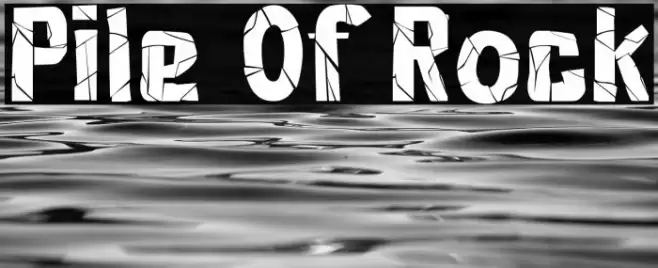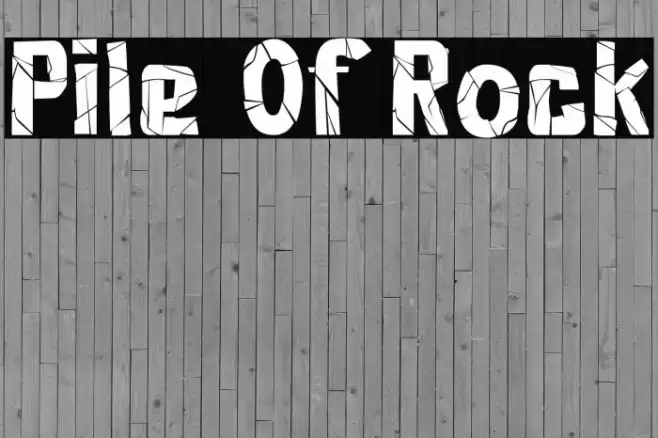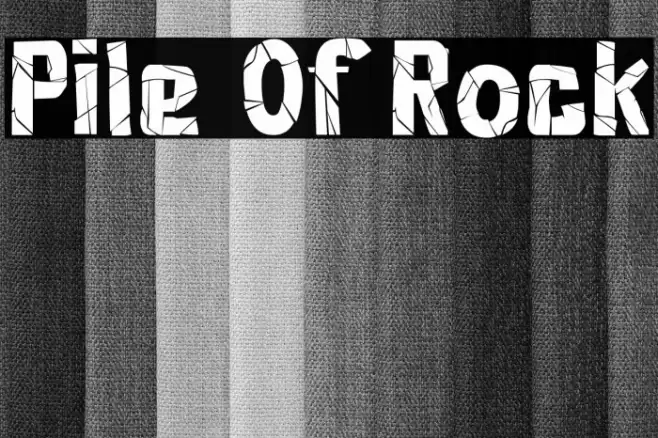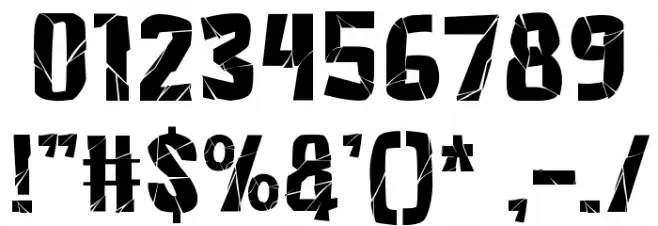
Pile Of Rock Font
Pile Of Rock Description
This font features a bold and rugged design, reminiscent of shattered rocks or broken glass. Each character is composed of angular, fragmented shapes that create a sense of dynamic movement and energy. The uppercase and lowercase letters maintain a consistent style, with sharp edges and irregular forms that give the font a distinctive, edgy appearance. The numerals and special characters follow the same design principles, ensuring a cohesive look across all glyphs. This font's unique aesthetic makes it ideal for projects that require a strong visual impact.
A bold, fragmented font with a rugged, dynamic design from Uncategorized fonts.
- Proposed Projects: Ideal for posters, album covers, video game titles, and branding that requires a strong, impactful visual style.
- Contrast: High
- Overall Style: Modern, Edgy